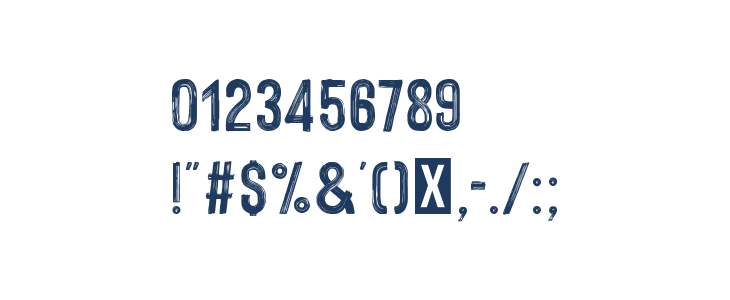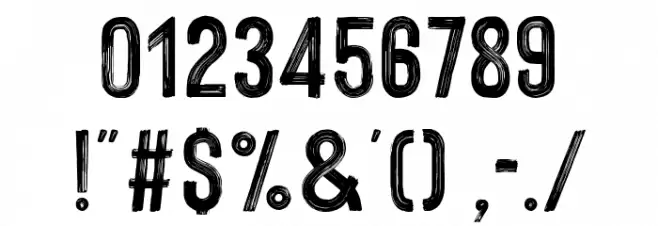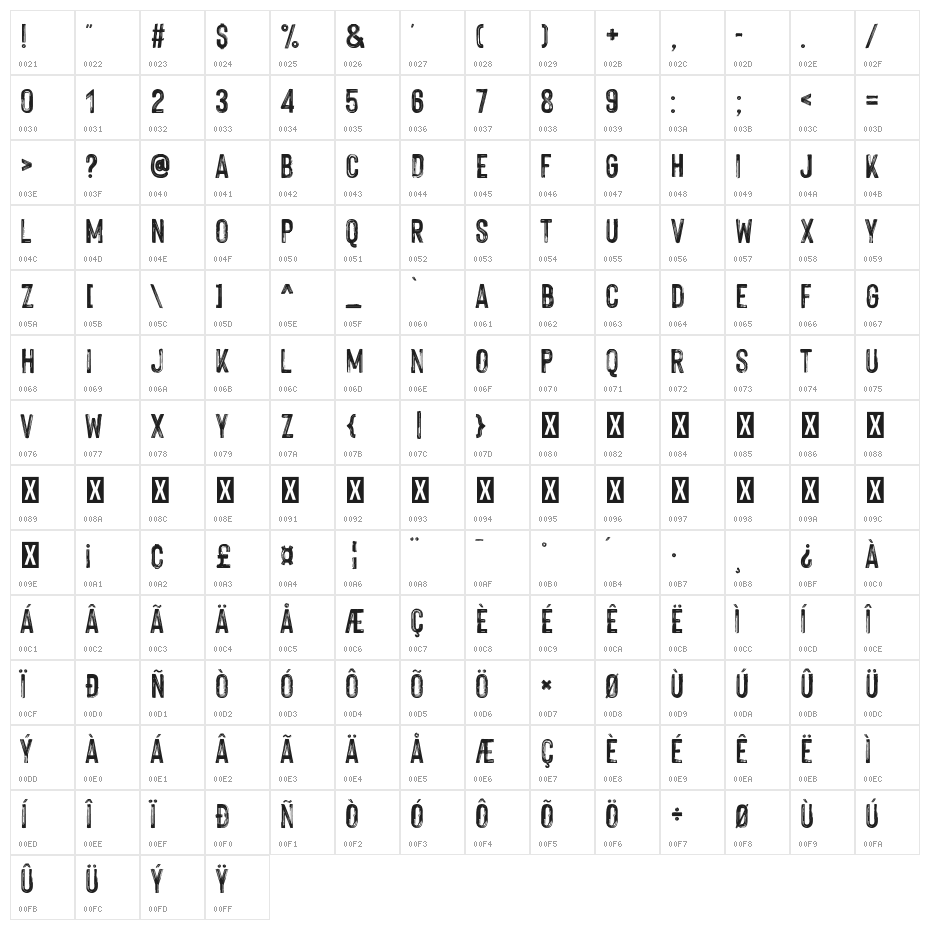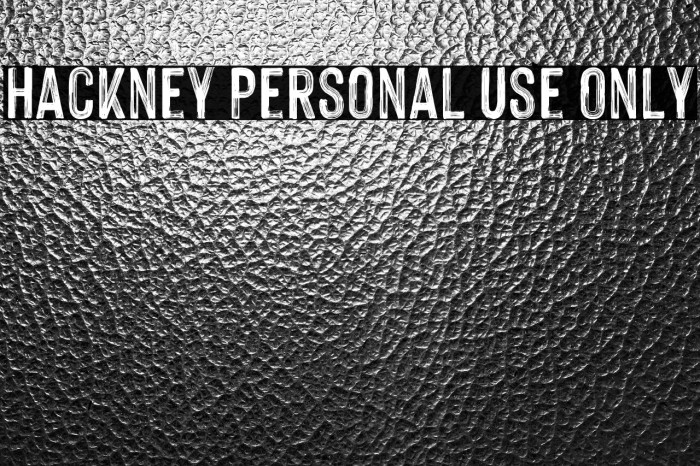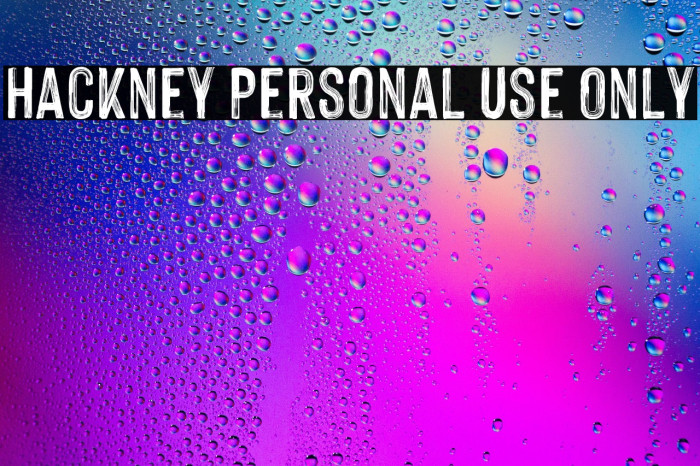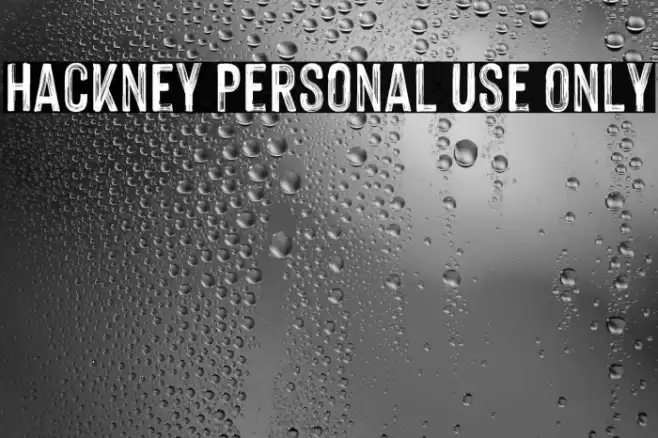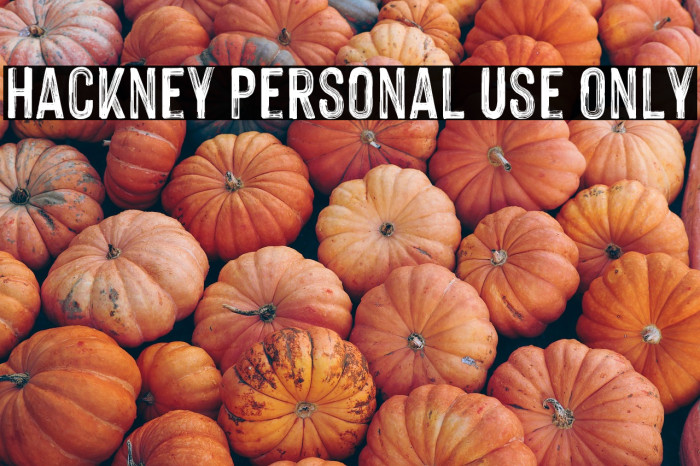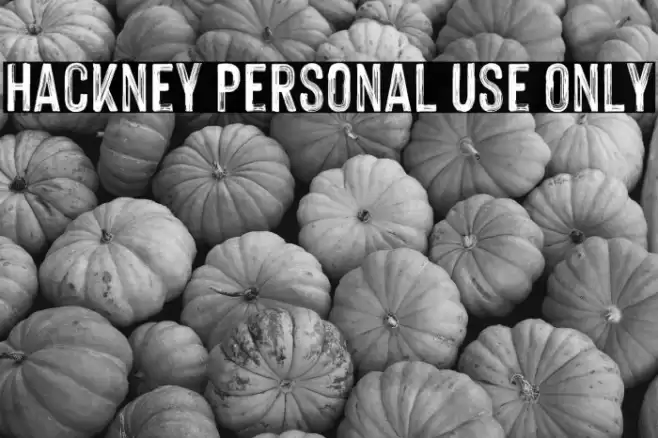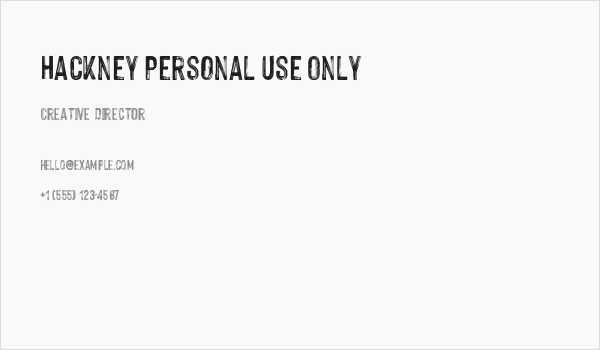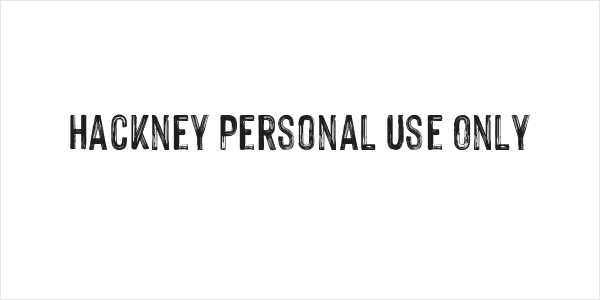
Hackney Personal Use Only Font
Hackney Personal Use Only Description
This font features a bold and textured style, characterized by its rough, hand-drawn appearance. The letters are uppercase and maintain a consistent height, with a slightly condensed width. The texture gives it a distressed, vintage feel, making it stand out with a unique personality. The numbers and special characters follow the same aesthetic, ensuring uniformity across all glyphs. The font's design is ideal for projects that require a rustic or handcrafted look, adding a touch of authenticity and charm.
| Proposed Projects | Ideal for branding, posters, album covers, and any design needing a rustic or handcrafted touch. |